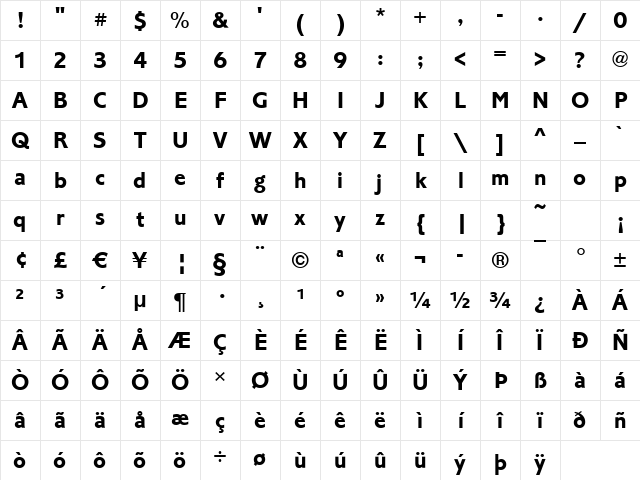
Complete Cordoba Bold glyph index. Displaying only characters natively supported by Cordoba Bold font.
Cordoba is a composed and adaptable typeface that performs quietly and consistently across a wide range of design contexts. Its bold stroke weight gives it real presence on the page.